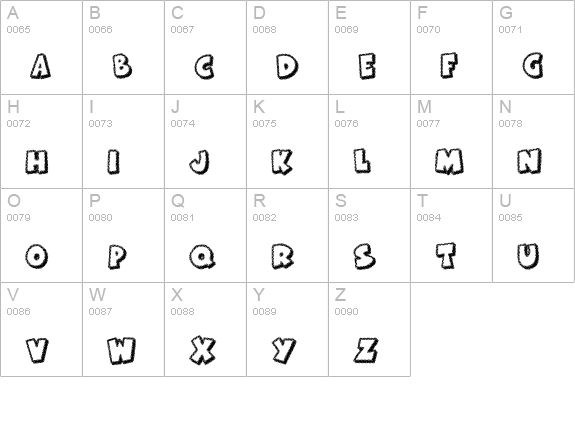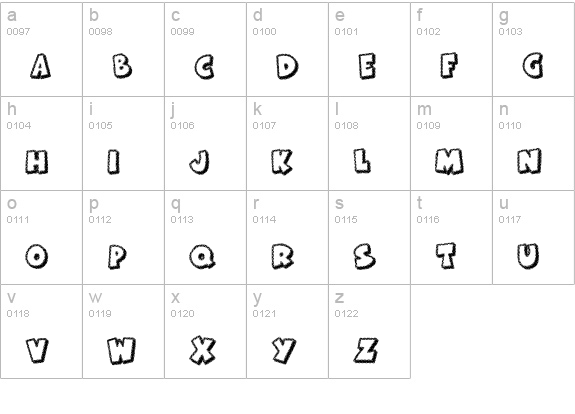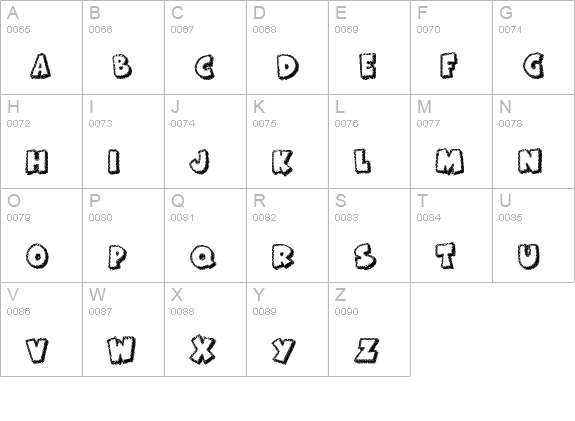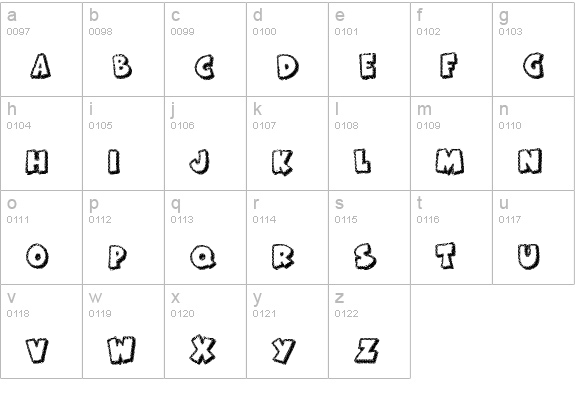
Introducing KR Frosted Cake font, a delightful and whimsical typeface that will add a touch of sweetness to your designs. With its playful curves and frosted-like appearance, this font is perfect for any project that needs a fun and charming feel. Whether you're designing birthday invitations, greeting cards, or party flyers, KR Frosted Cake will bring a festive and joyous vibe to your creations. Best of all, KR Frosted Cake font is completely free to download at FontsMarket.com! That's right, you can enjoy all the charm and creativity of this unique font without spending a penny. So go ahead and add a sprinkle of magic to your designs with KR Frosted Cake font today.